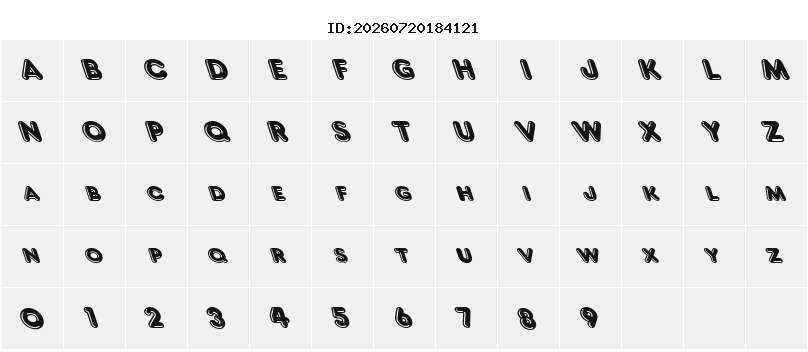
• Font Name: Frank Lazy
• Font ID: Frank Lazy
• Full Font Name: Frank Lazy
• PostScript Name: FrankLazy
About Frank Lazy.ttf
Frank Lazy.ttf is a modern, elegant sans-serif font designed for ultimate readability and visual harmony. Perfect for branding, headlines, web design, and print materials.